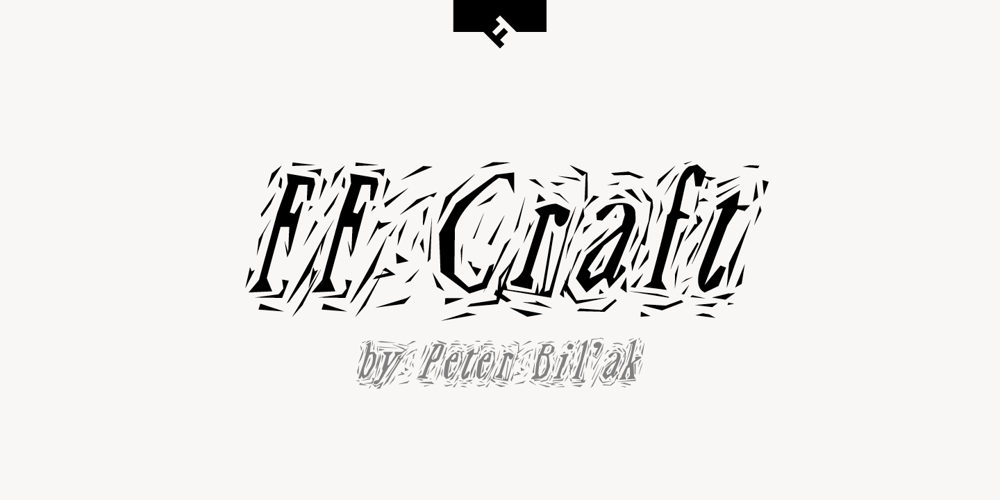
FF Craft Font Family was designed by Peter Bil’ak and published by FontFont. FF Craft contains 4 styles and family package options. Slovakian type designer Peter Bil’ak created this display FontFont in 1994. The family contains 4 weights and is ideally suited for festive occasions and music and nightlife. FF Craft provides advanced typographical support with features such as ligatures. It comes with proportional lining figures.